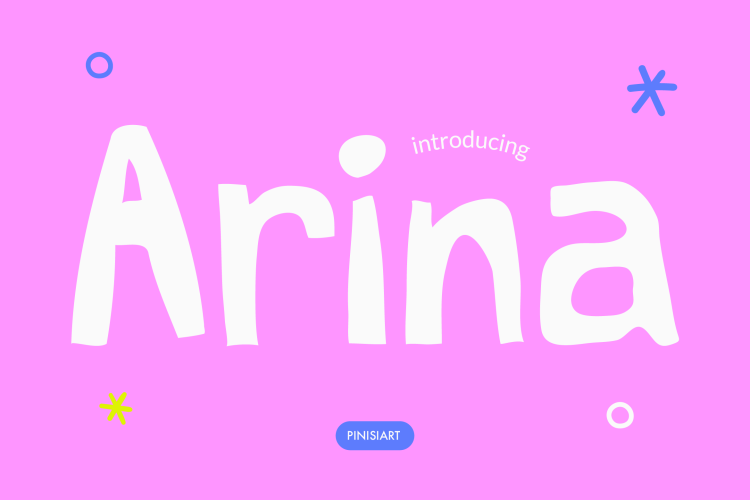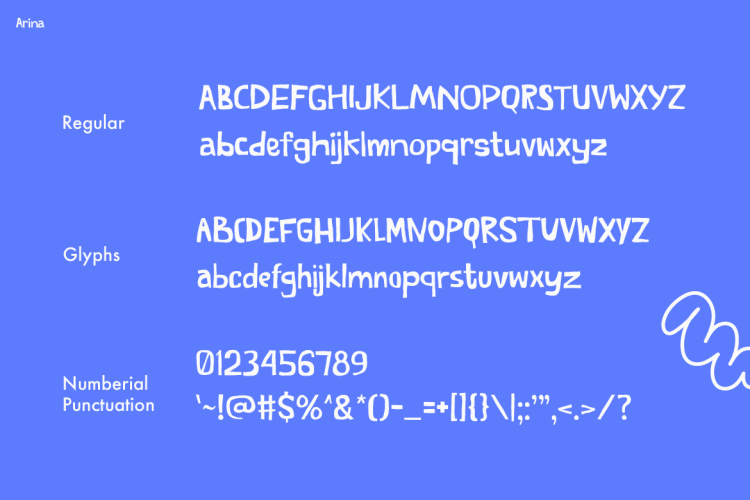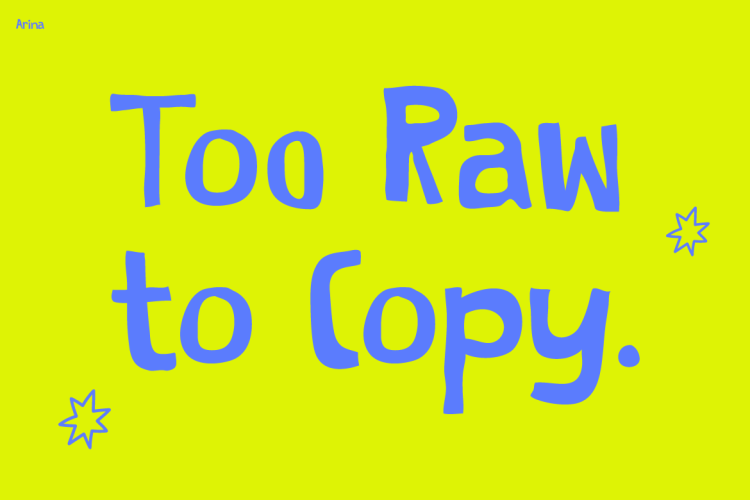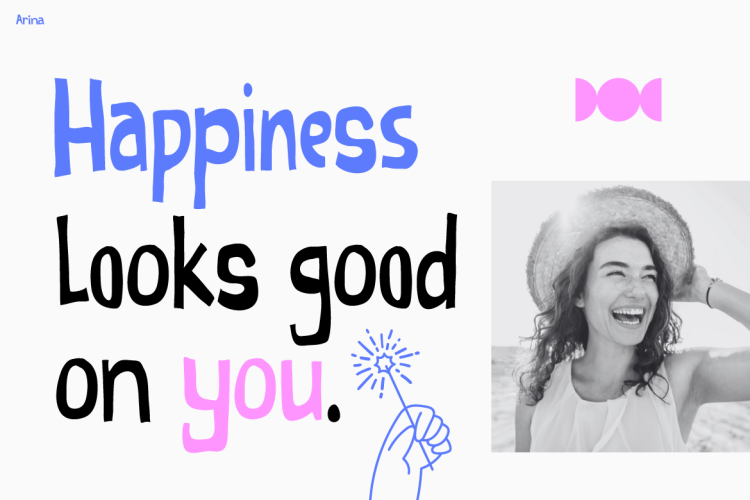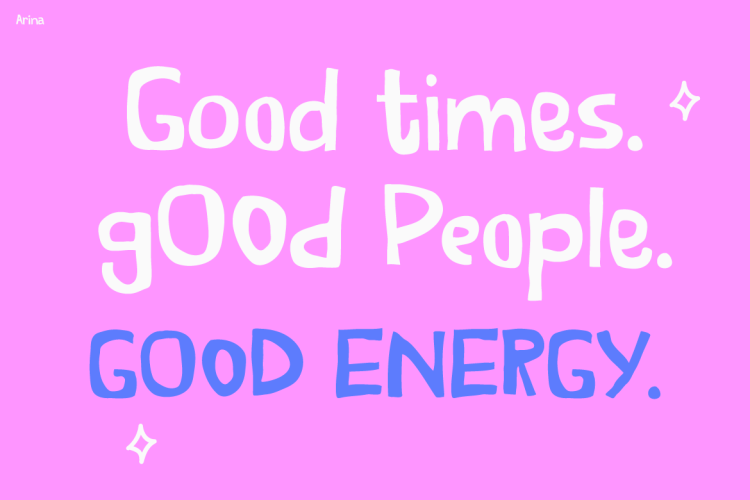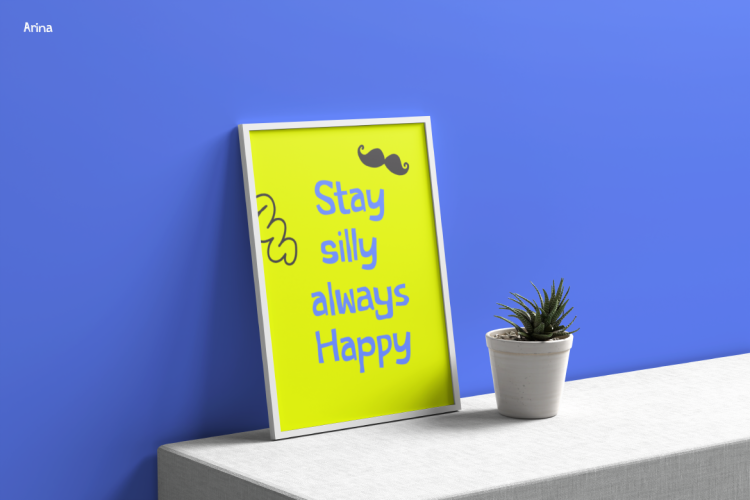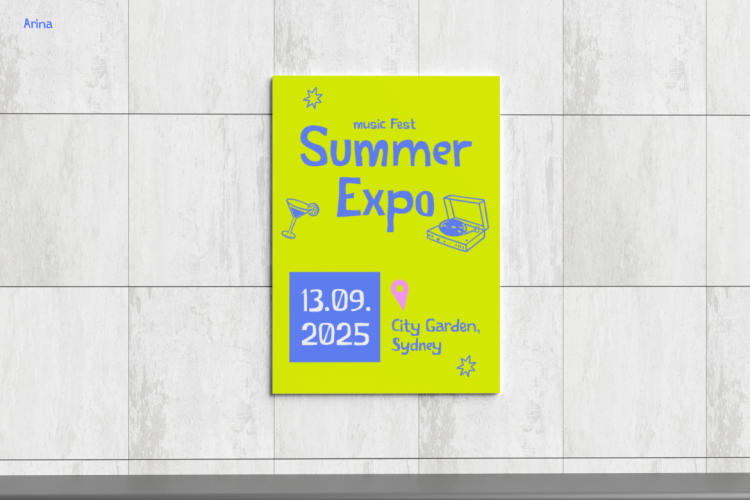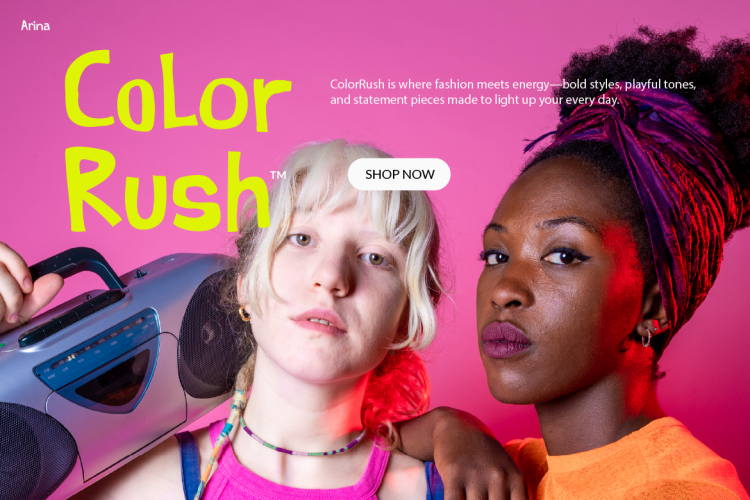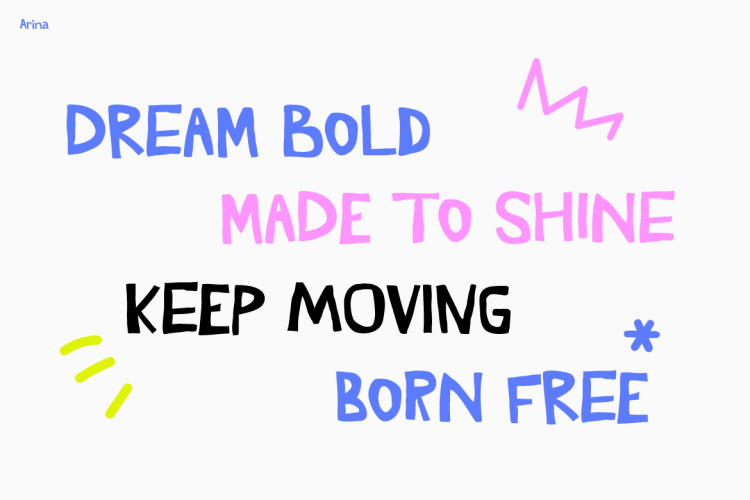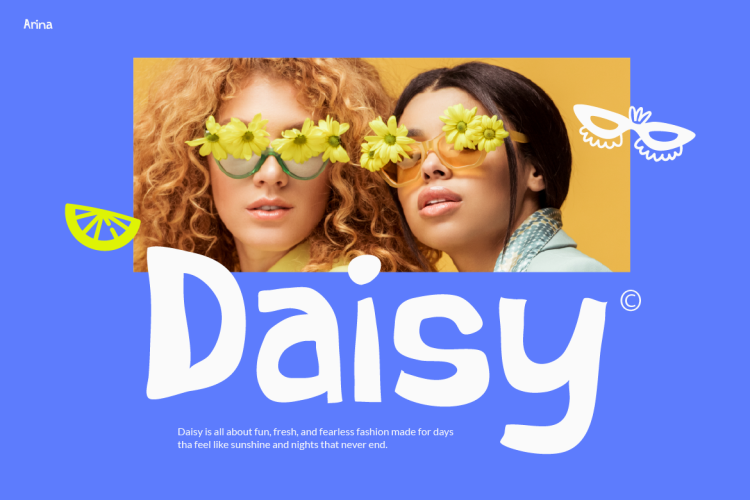
Arina โ Playful Letters, Big Imagination
Kids Font Arina is a unique typeface that shines with bold strokes, fun curves, and a cheerful personality. Its aesthetic is vibrant and full of energy, and it makes every word feel alive. Designed to be eye-catching and approachable, this font also blends playfulness with a handcrafted touch. Rounded shapes and quirky details bring a sense of wonder, while clean readability ensures it works well in both digital and print. Therefore, whether for posters, branding, or educational projects, it adds a joyful spark that connects instantly with kids and adults.
With its lively style, Kids Font Arina is more than just a typefaceโitโs also a design tool that boosts creativity. The expressive letterforms make bold titles stand out, and they also help motivational quotes pop with personality. Its versatility means you can use it for vibrant packaging, colorful social media posts, or cheerful branding. In addition, every letter feels alive, telling its own playful story. This makes the font perfect for projects that aim to spread positivity, happiness, and youthful energy.